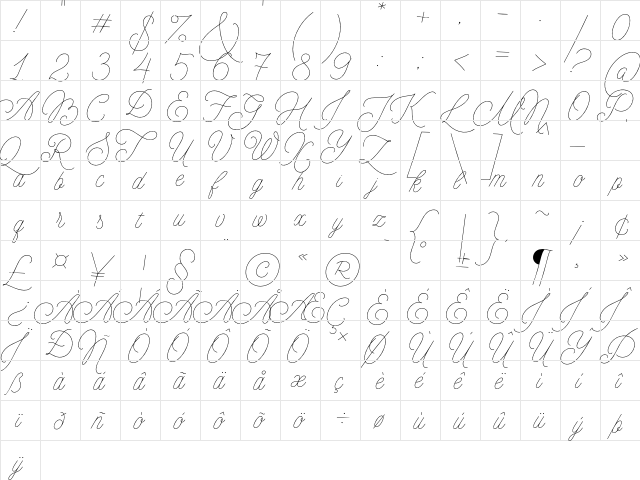
MADE Florence Script Regular
| Foundry | MadeType |
| Designer | MadeType |
Design Context for MADE Florence Script Typeface
MADE Florence Script flows with the natural rhythm of handwritten lettering, making it ideal for designs that call for warmth and personal expression.
Font Pairing: Combine MADE Florence Script with a simple geometric sans for maximum contrast — the tension between flowing curves and clean structure is a classic typographic pairing.
Pro Tip: Pair MADE Florence Script with a clean sans-serif for supporting text. The contrast between fluid script and geometric structure creates an elegant typographic hierarchy.